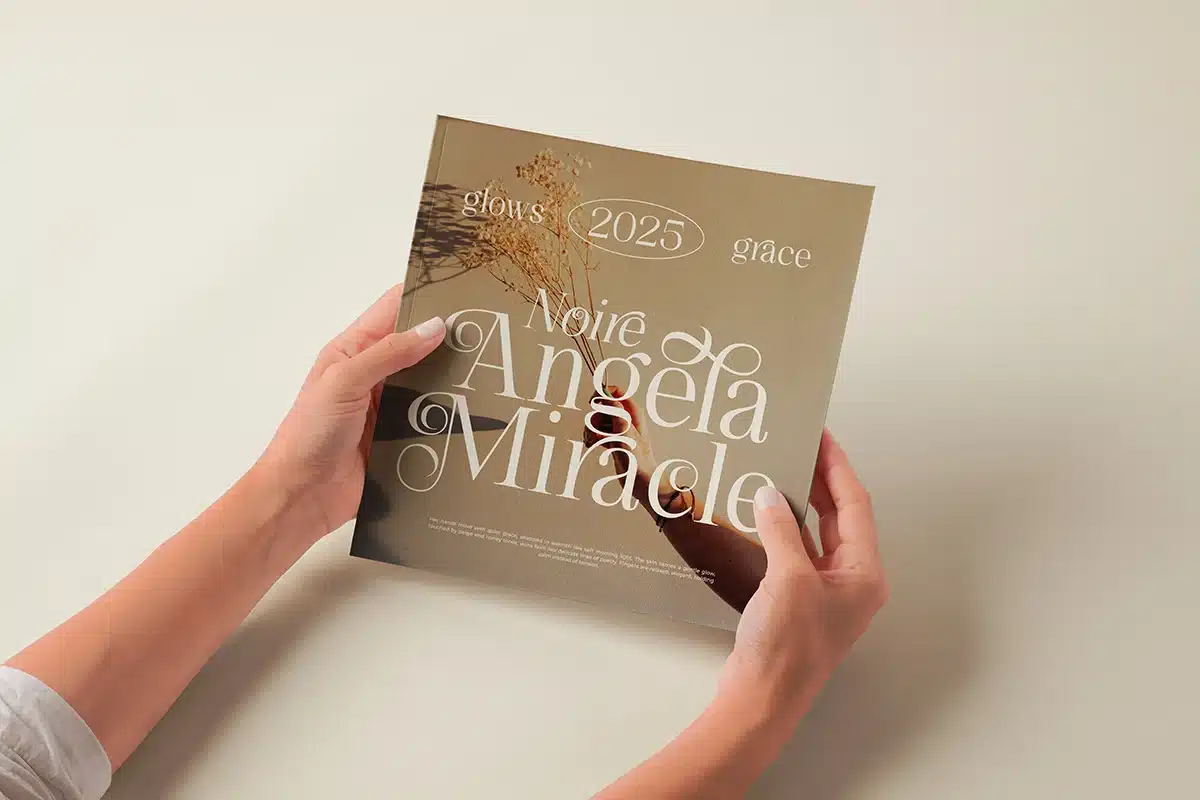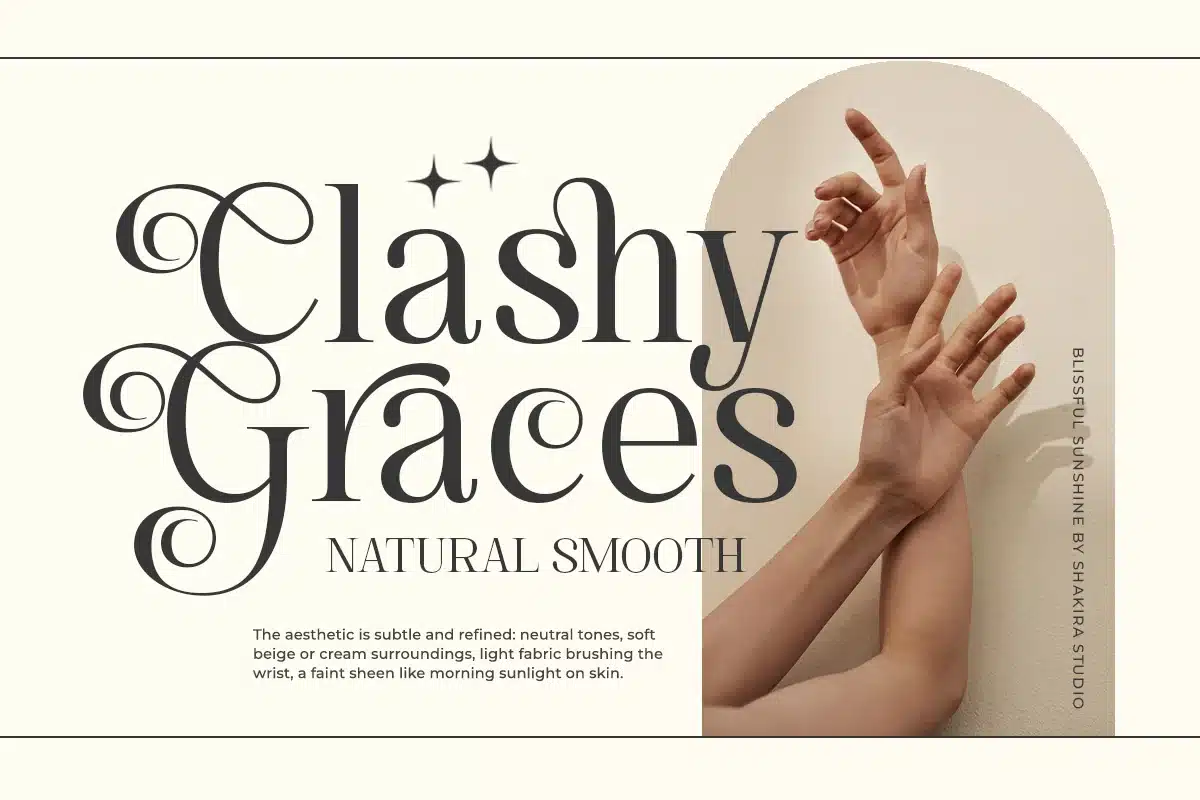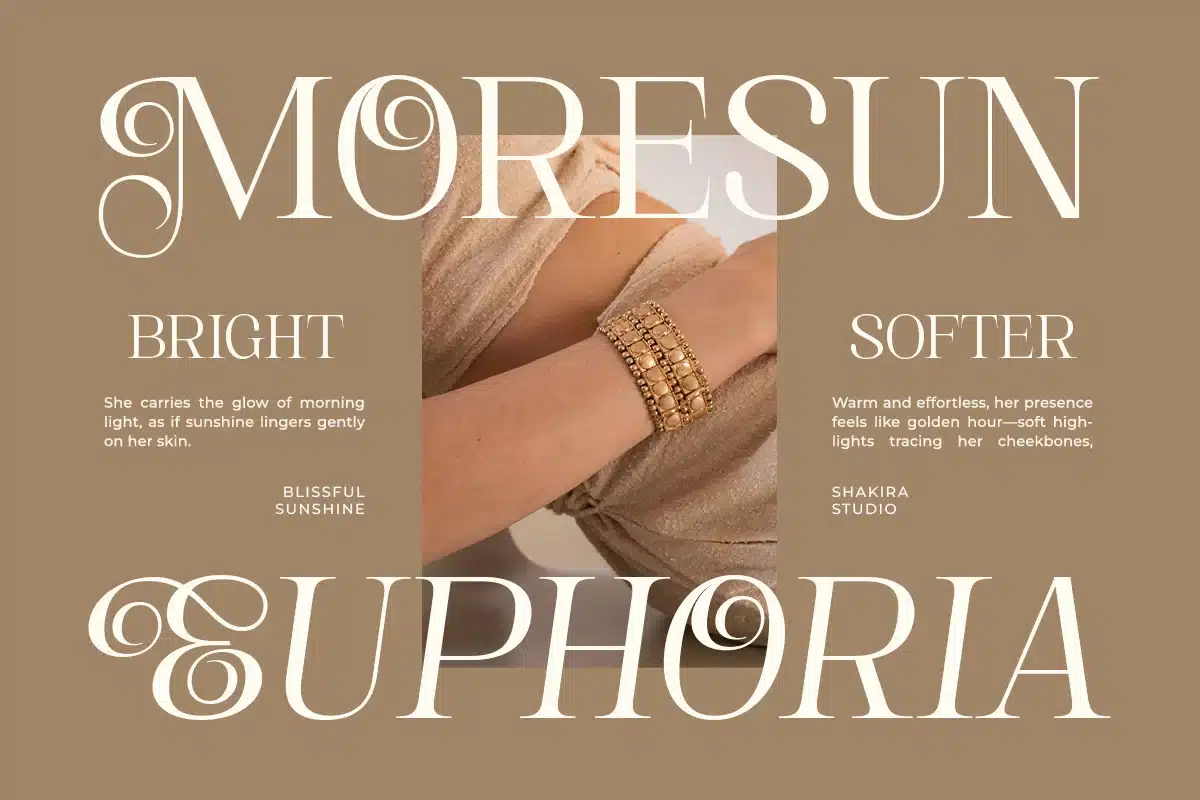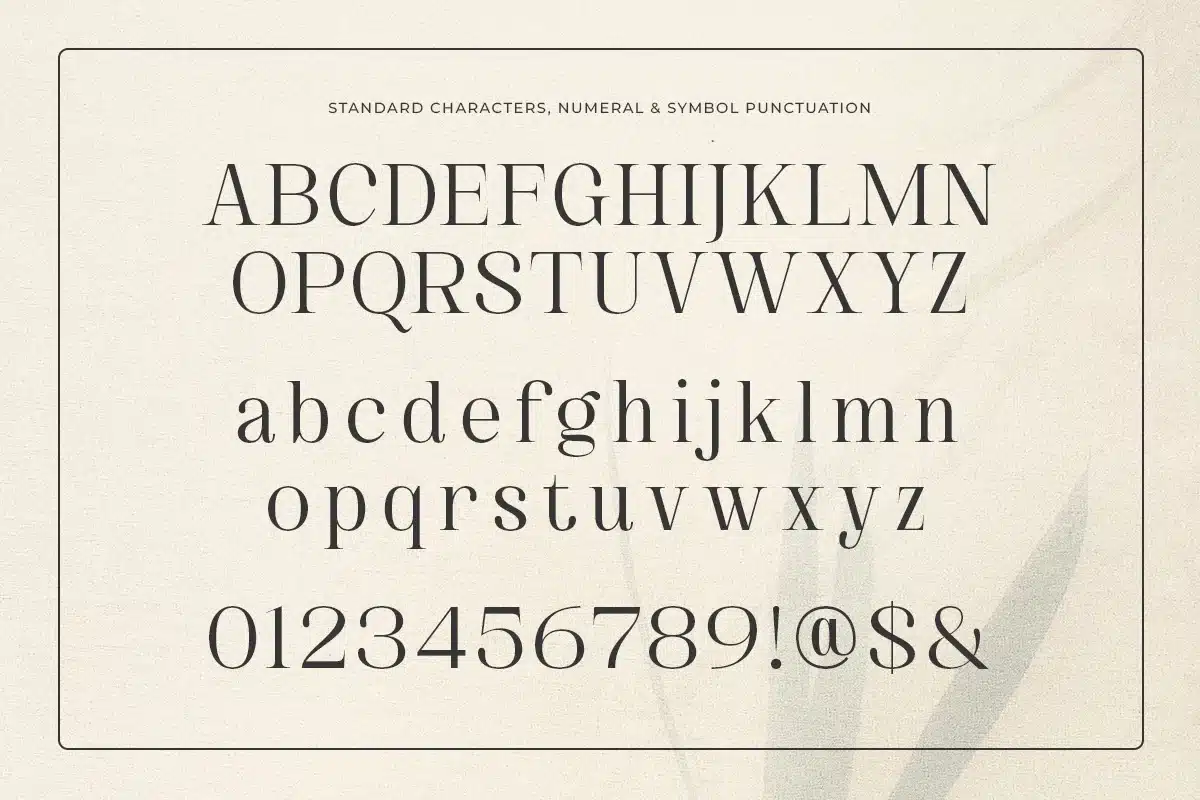
Elegant Stylish Swash Wedding – Blissful Sunshine Font
Blissful Sunshine is a modern elegant swash serif typeface crafted for romantic branding and stylish editorial layouts. Featuring graceful swashes, smooth contrast, and refined proportions, it delivers a soft luxury typographic presence.
Its flowing terminals and stylish ligatures make it perfect for wedding invitations, beauty branding, boutique logos, and premium packaging. Blissful Sunshine blends elegance and warmth into a timeless display serif.
Designed for creatives who want romantic sophistication with modern clarity.
- Uppercase & lowercase
- Regular & Italic
- Alternates & ligatures
- Swash characters
- Elegant high-contrast design
Wedding branding, beauty logos, boutique identity, editorial design, packaging, feminine branding.